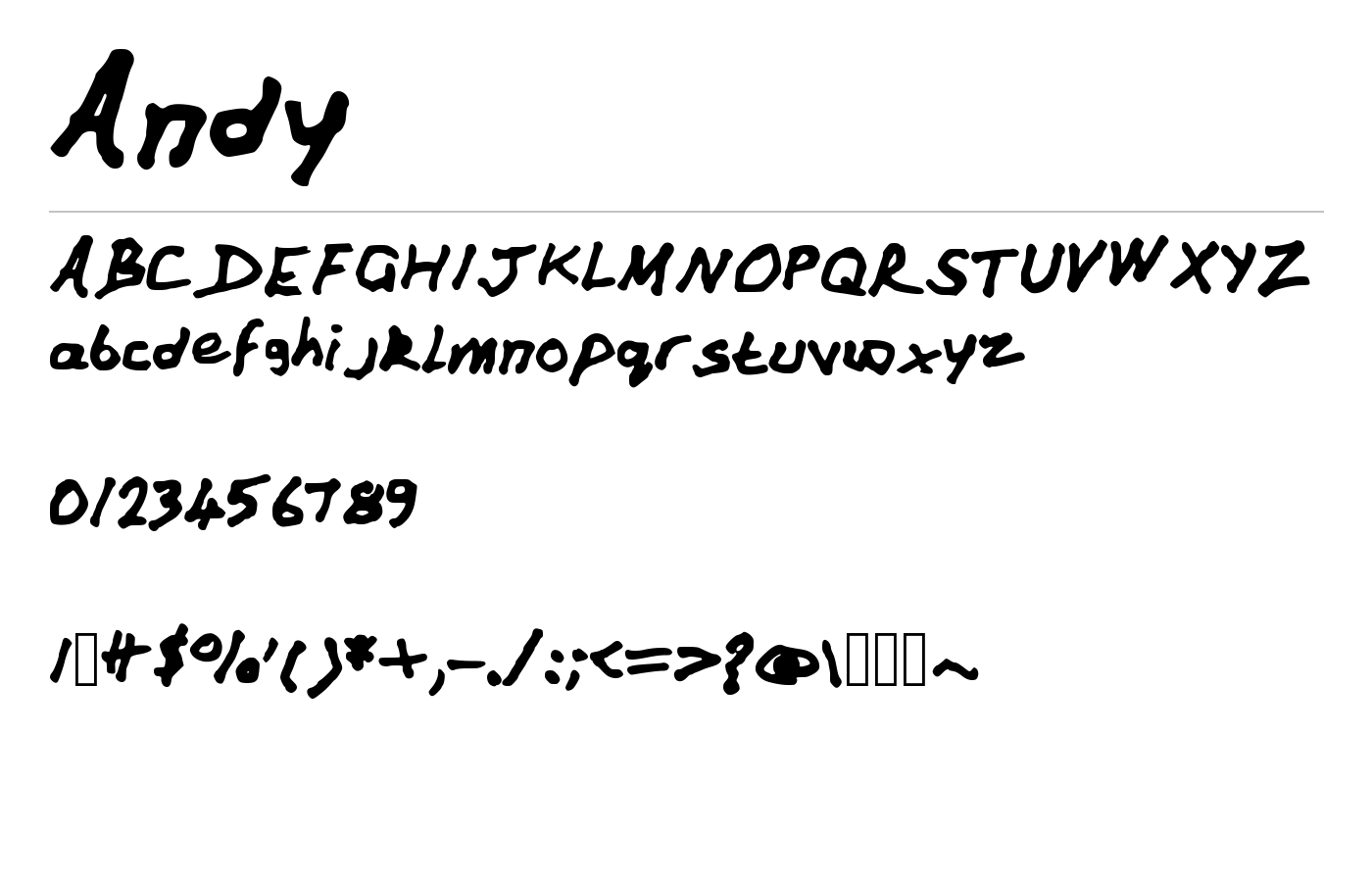
Andy Font is a playful, casual handwritten typeface with irregular, organic strokes that give it a friendly and approachable feel. Its uneven letterforms and lively rhythm make it perfect for creative projects, children's materials, and informal branding that aims to convey warmth and personality. This font works well in headlines, logos, and packaging where a fun and personal touch is desired.
Andy Font
About Andy Font